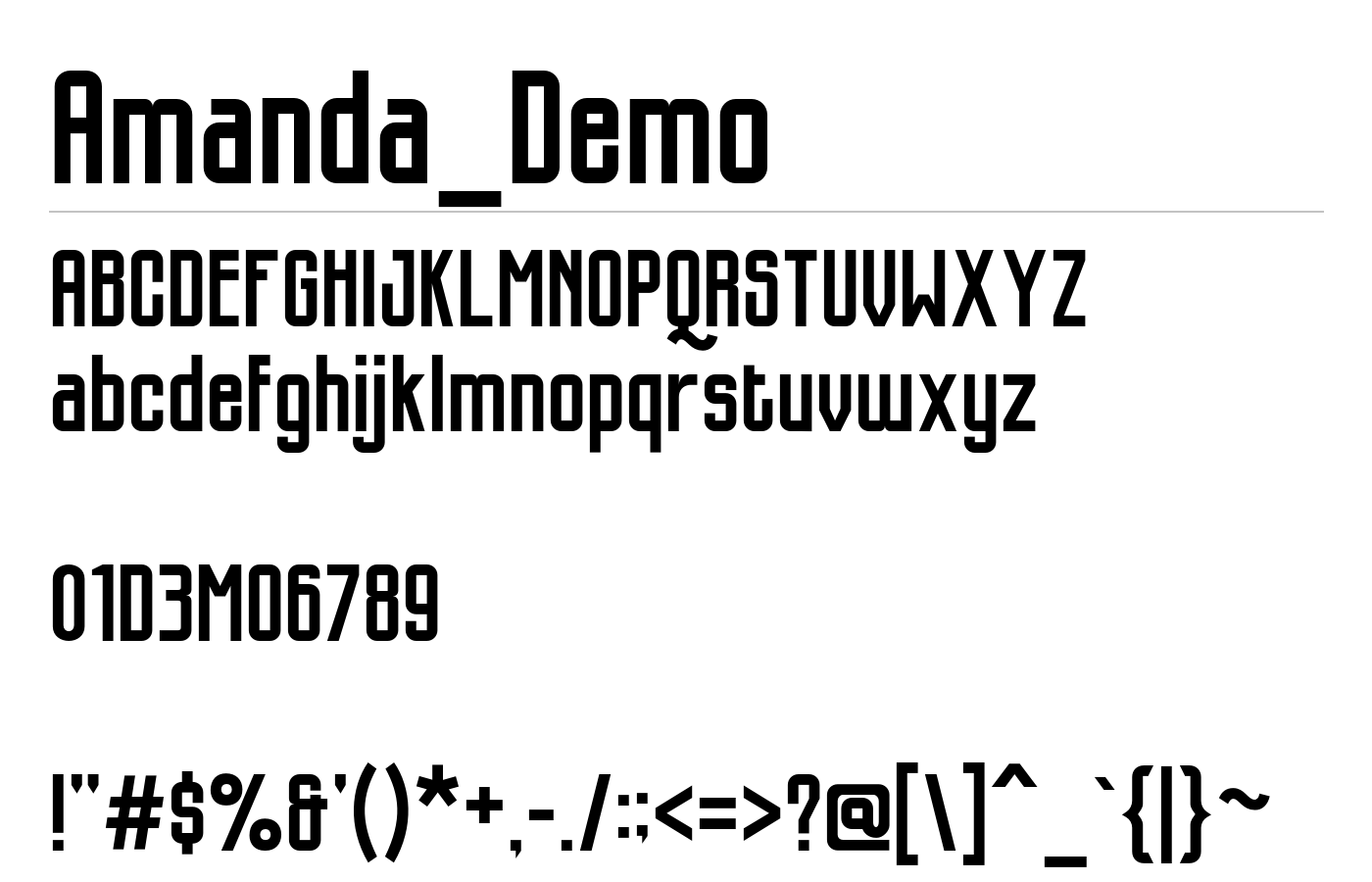
Amanda_Demo is a bold, condensed sans serif font with a modern, geometric feel. Its tall, narrow letterforms and consistent stroke weight give it a strong, clean presence ideal for striking headlines, logos, and branding that need a contemporary edge. This font works well where space is limited but impact is essential, bringing a confident and industrial vibe to any design.
| Font family | Amanda_Demo Font |
| Designer | Almaz Studio™ |